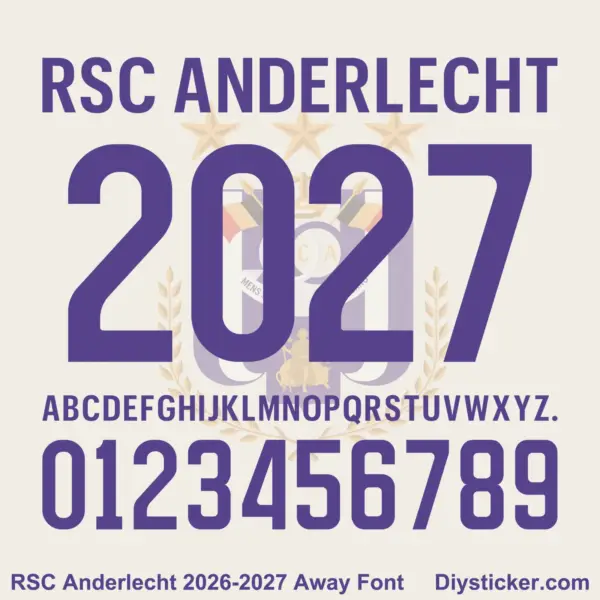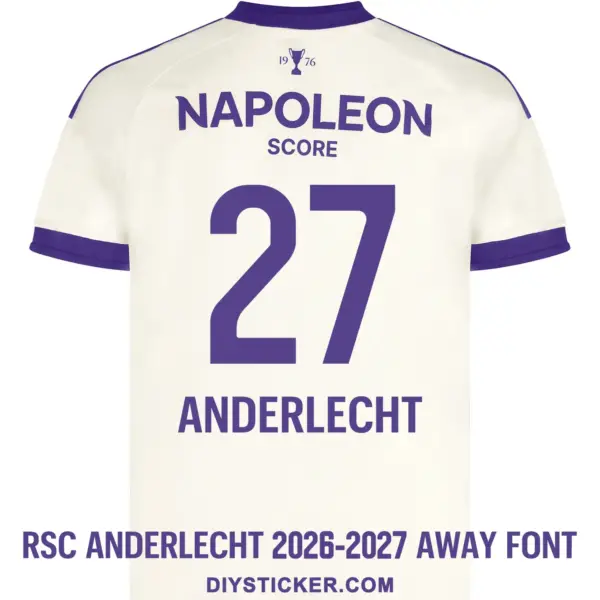
Bring iconic Belgian elegance to your custom apparel catalog with this official kit typography set! If you are searching for an authentic RSC Anderlecht 2026-2027 away font download to produce custom heat transfers, this digital asset package features the complete RSCA 2026-27 away kit font rendered in classic purple against cream-white backdrops. Designed with clean rounded sans-serif geometry, tall condensed proportioning, and minimalist block-style squad numbers, it is the ultimate custom jersey printing font RSC Anderlecht choice for garment decorators and printing professionals.
Elevate Your Kit Customization with the RSC Anderlecht 2026-2027 Away Font
Upgrade your custom sports apparel store with the official match-day away kit typography for Royal Sporting Club Anderlecht! This digital asset pack delivers a complete RSC Anderlecht 2026-2027 away font download tailored for Belgian Pro League and European competition custom printing. Featuring clean, modern sans-serif uppercase lettering with subtle inner corner rounding and tall, high-visibility solid purple squad digits, this design offers superior legibility and understated contrast against cream and off-white away kit fabric.
Comprehensive Character Mapping
A-Z Uppercase Alphabet: Clean, tall sans-serif letterforms built for bold clarity across player nameplates (
NAPOLEON,ANDERLECHT). -
0-9 Custom Squad Numbers: Solid purple numeric glyphs styled with soft rounded corners and clean vertical alignment (supplied as Anderlecht jersey numbers vector).